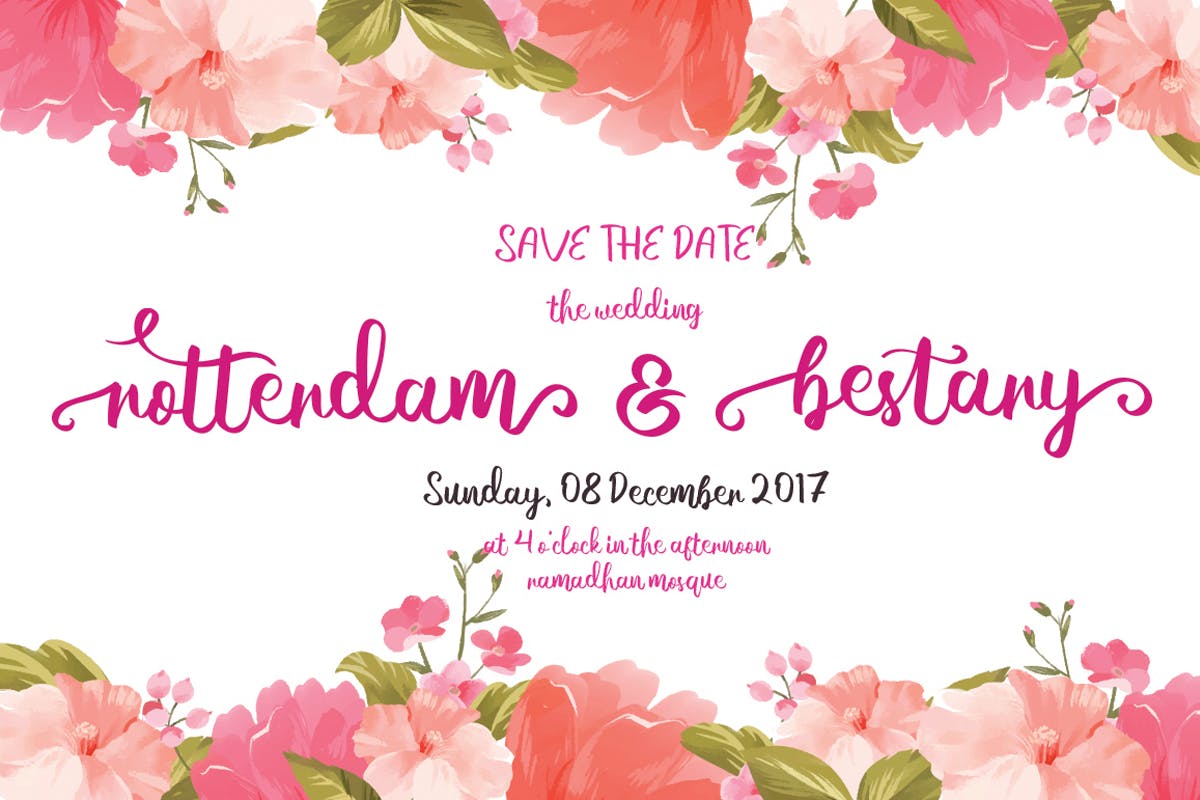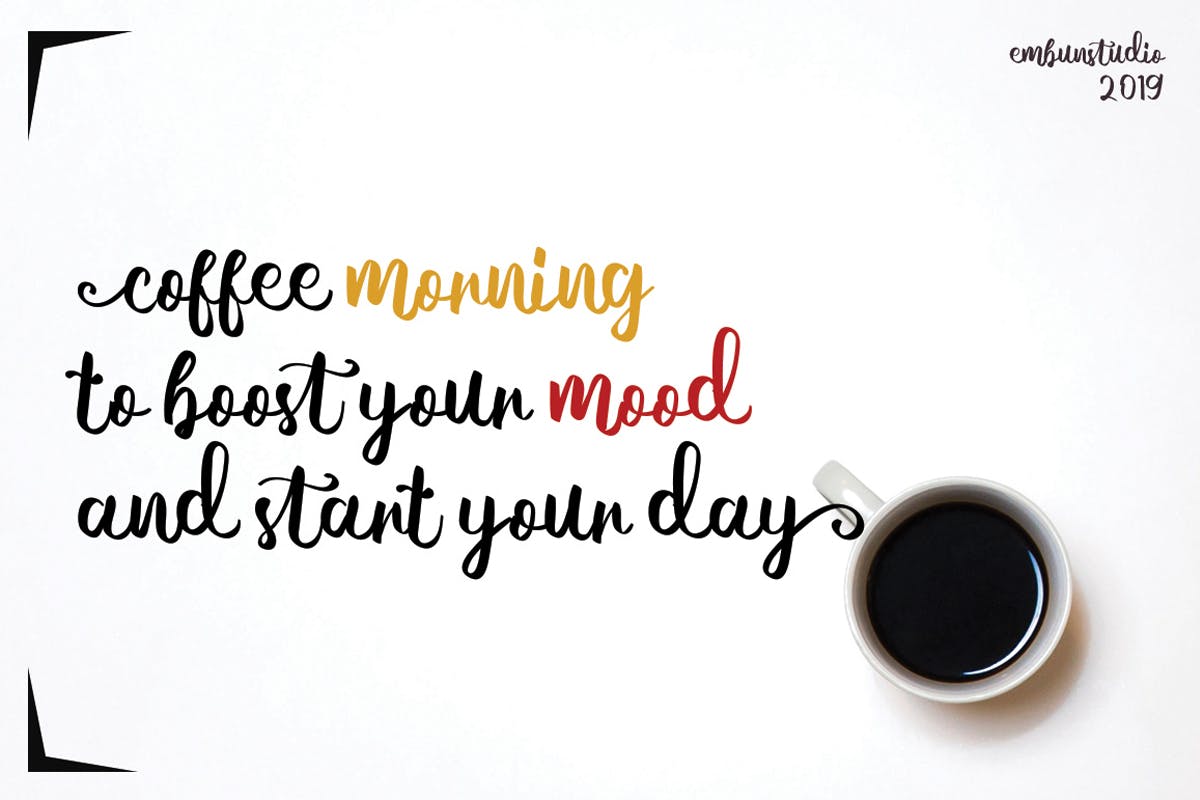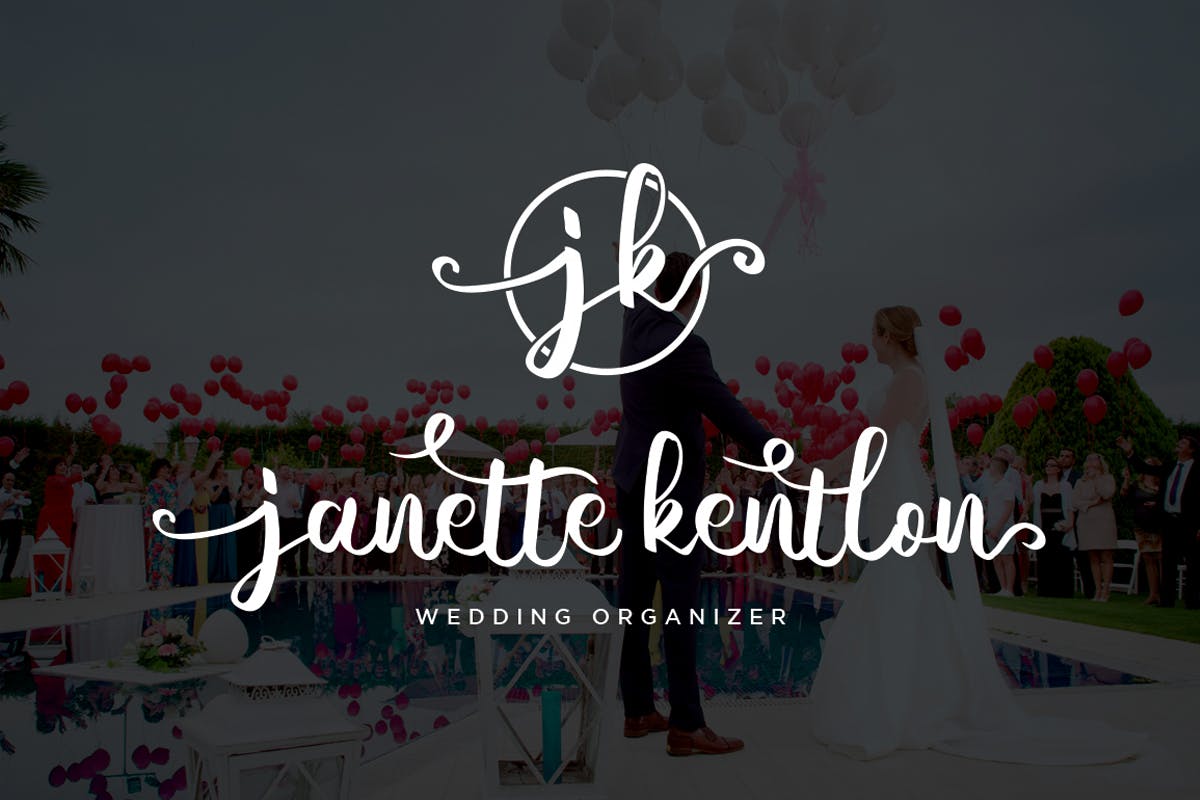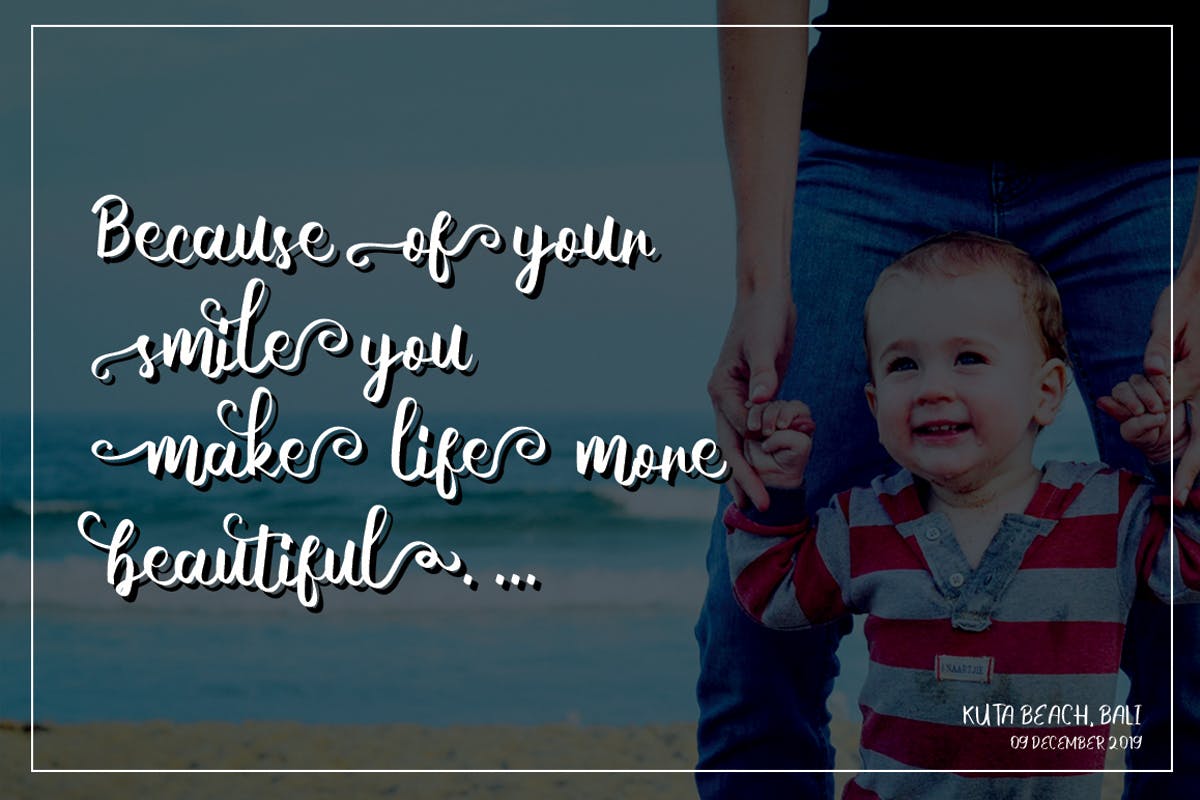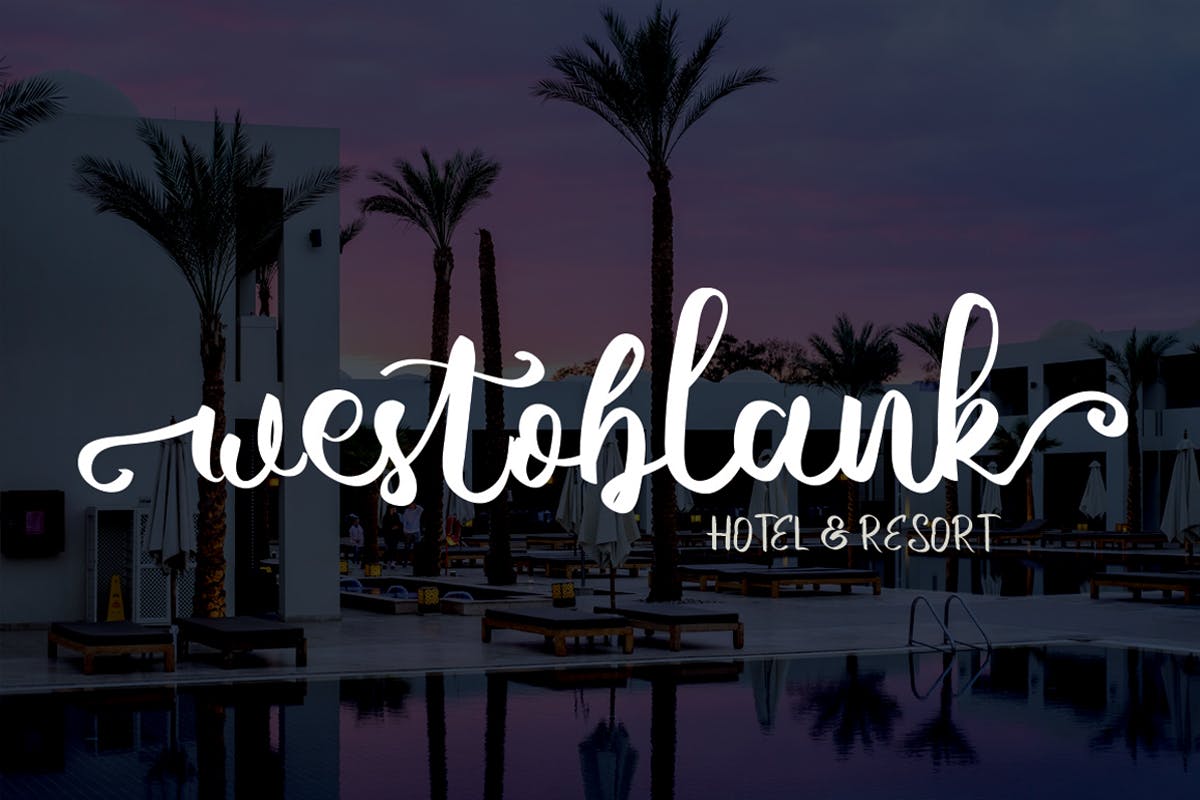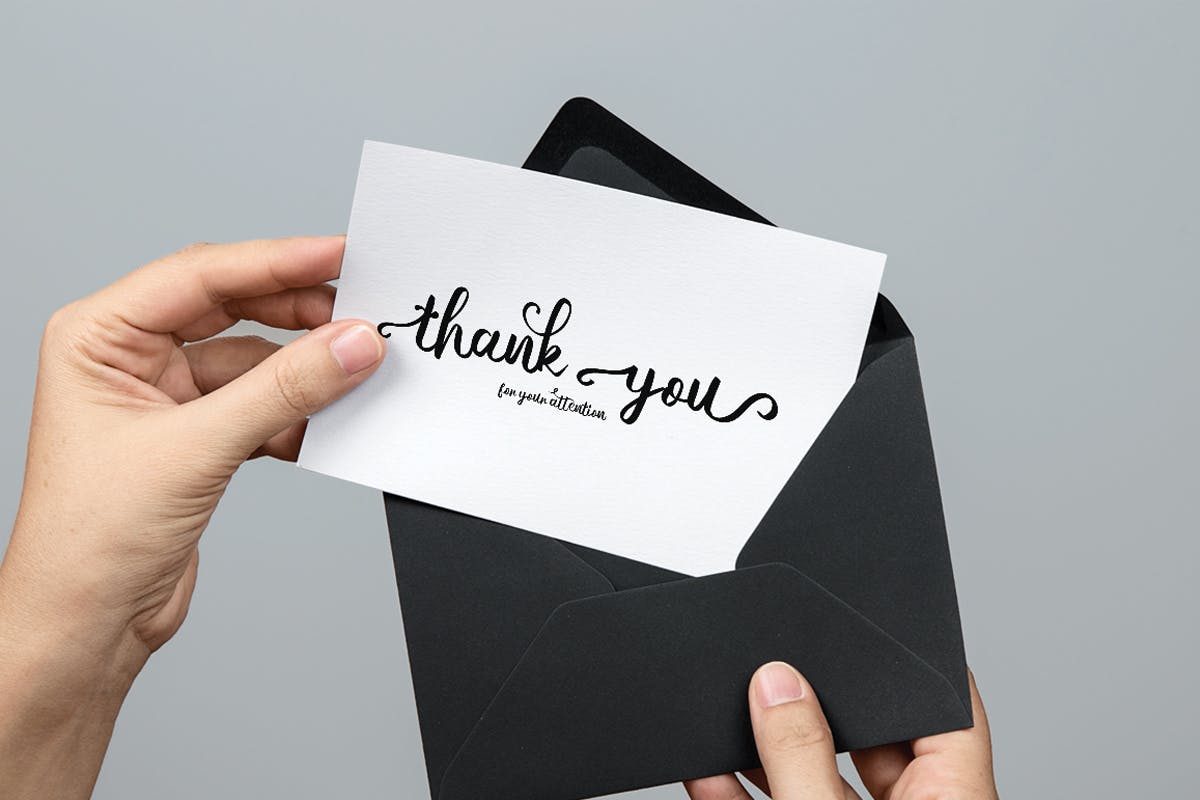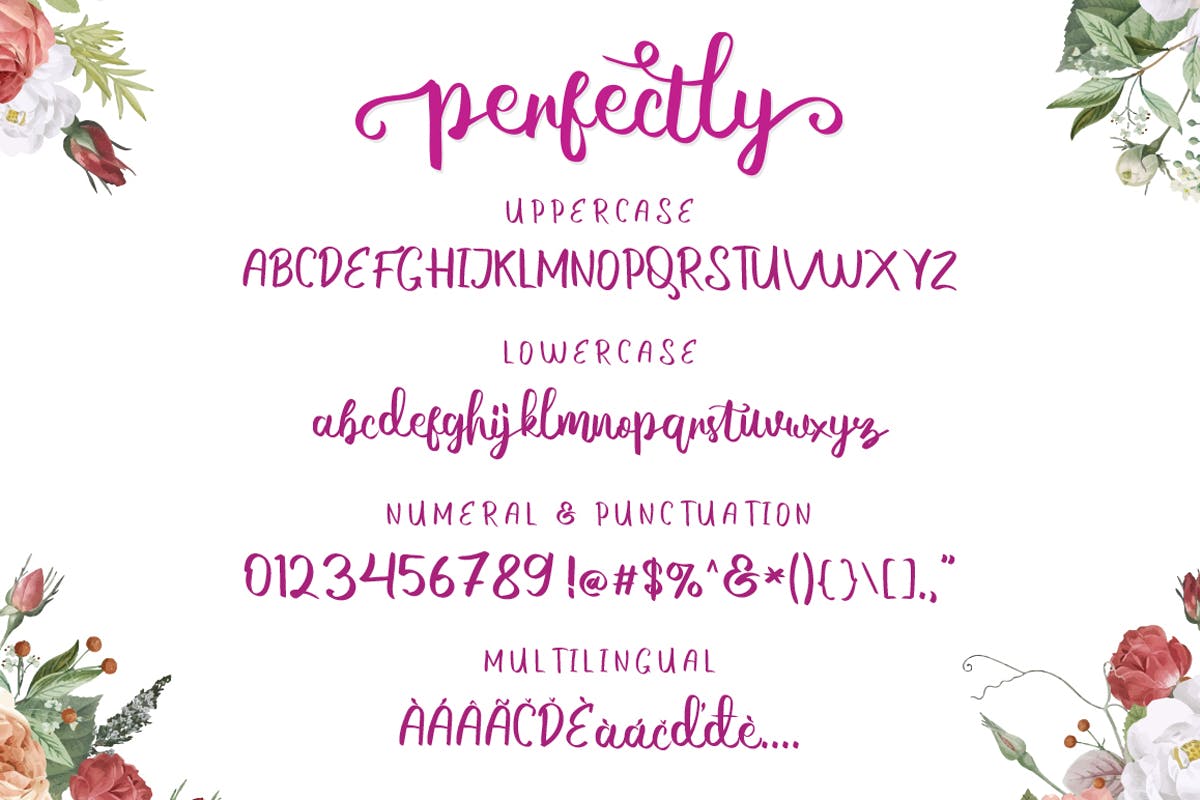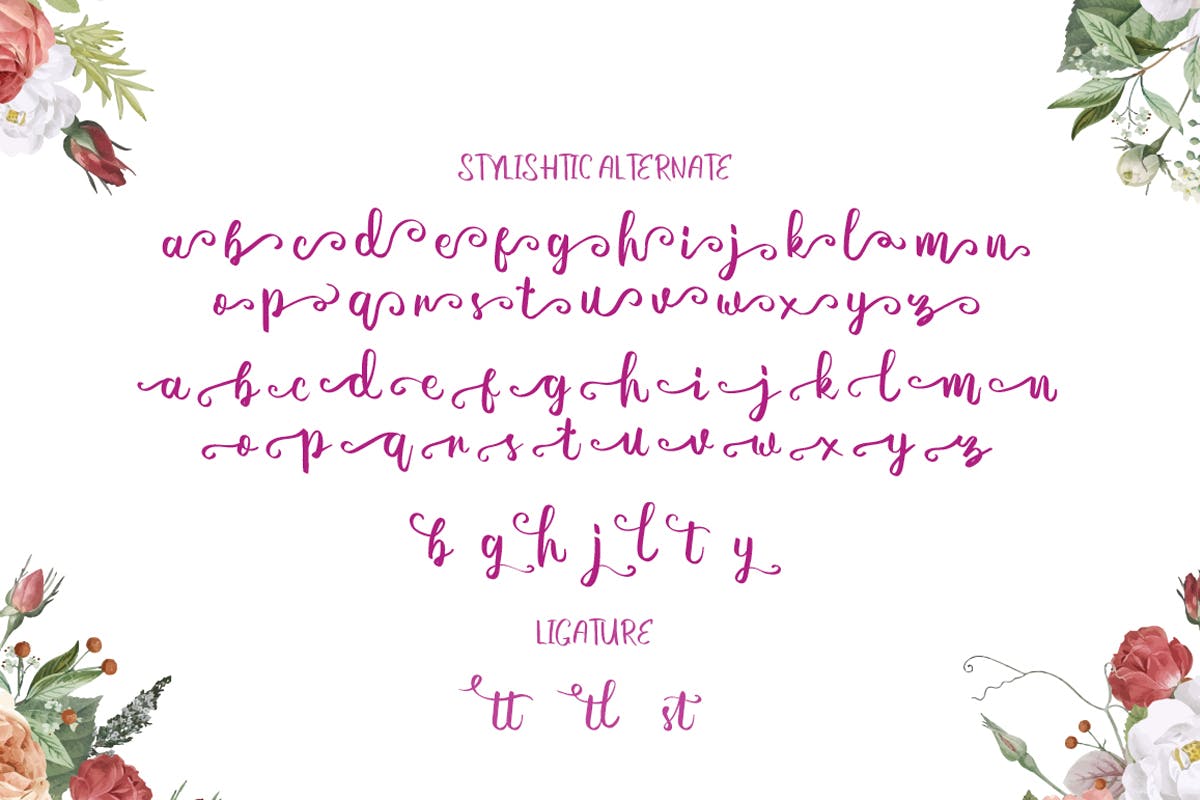
Free Perfectly Script Font
Free Perfectly Script Font is an awesome hand-lettering font. It is suitable for you to use it on your projects such as wedding invitation, gift cards, flyers, business cards, and more. This free font is available for the OTF format file that you can install and use it on your devices. However, this font is coming with a personal use license, but you can get more features by clicking the premium version below.